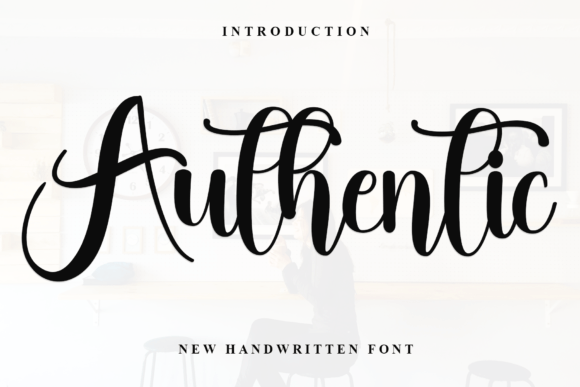
The Quest for the Perfect Font: Discovering Authentic
I still remember the frustration of working on a design project, hours spent searching for that one font that would bring everything together. My client wanted a stylish, handwritten look with a contemporary twist, and I was determined to deliver. That’s when I stumbled upon Authentic, a beautiful font that has since become a staple in my design toolkit.
What is Authentic?
Authentic is a stylish handwritten font with a contemporary atmosphere and impeccable form, inspired by timeless classic calligraphy. It’s balanced, varied, and designed to enhance the beauty of your projects. One of the best things about Authentic is that it’s PUA encoded, which means you can easily access all the amazing glyphs and ligatures.
• ✨ Beautifully crafted letters with a perfect blend of classic and modern styles
• 🎉 Wide range of glyphs and ligatures to add personality to your designs
• 💻 PUA encoded for easy access to all the extra features
While Authentic is an amazing font, there are a few things to keep in mind. ⚠️ Some users might find the font a bit too slender for certain design applications. Additionally, 🤔 it can be a bit tricky to pair with other fonts, so some experimentation may be required.
The Story Behind Authentic
Authentic was inspired by the timeless beauty of classic calligraphy, with a modern twist. The designer aimed to create a font that would be both elegant and approachable, perfect for a wide range of design applications. While the real story behind Authentic’s creation remains a mystery, it’s clear that the font was crafted with love and attention to detail.
A: PUA (Private Use Area) encoding allows font creators to include additional characters and glyphs that aren’t part of the standard Unicode character set. This means you can access extra features like ligatures and swashes in Authentic.